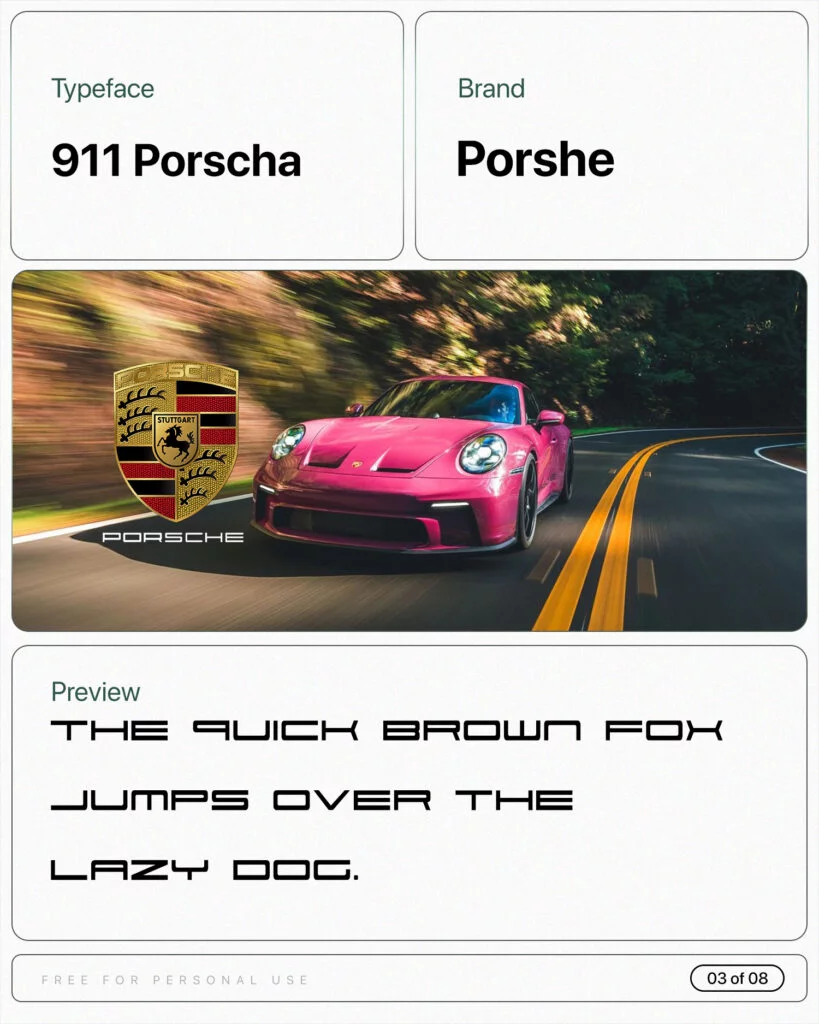
Fonts Used by Car brands with download links.š£
The typography behind iconic rides! From the sleek curves of Porshe to the bold statements of Tesla, delve into the world of automotive branding through fonts.
Each letter captures the essence of speed, luxury, and innovation. ā¤ļø
In some cases, the fonts have been or edited from their original form to create a customized wordmark. In those cases, Iāve listed the closest possible font that matches the logo.
Ferrari Logo Fot
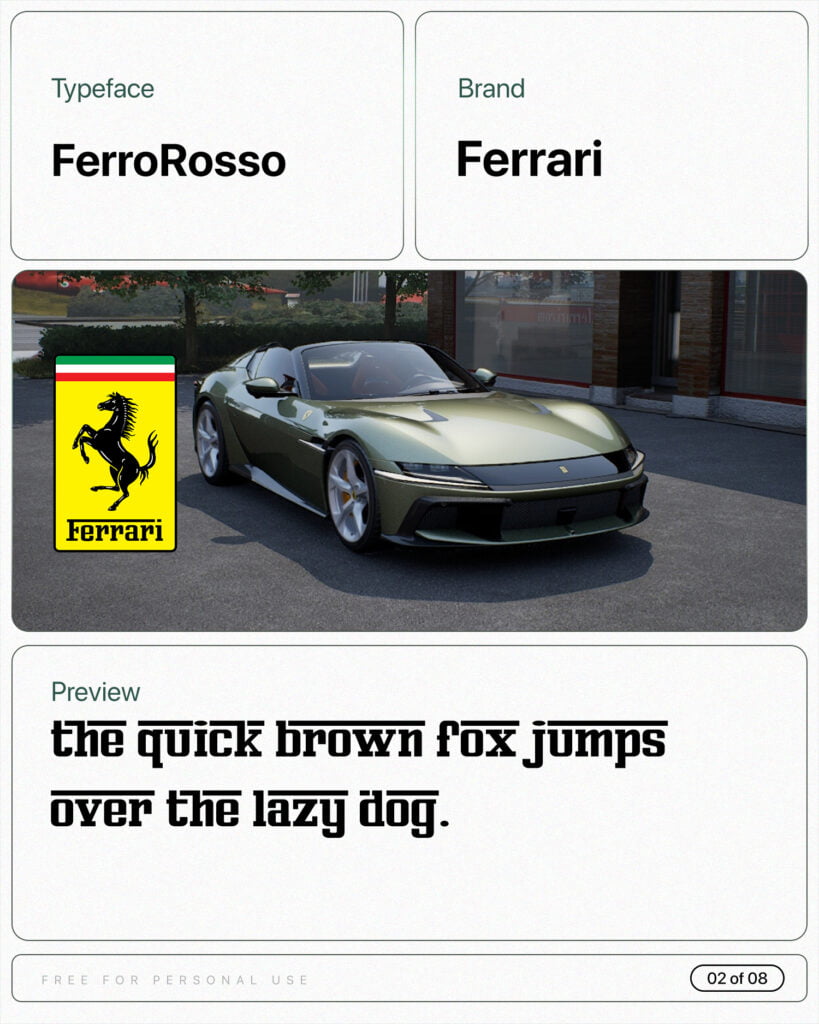
Porsche Logo Font
Ford Script Font
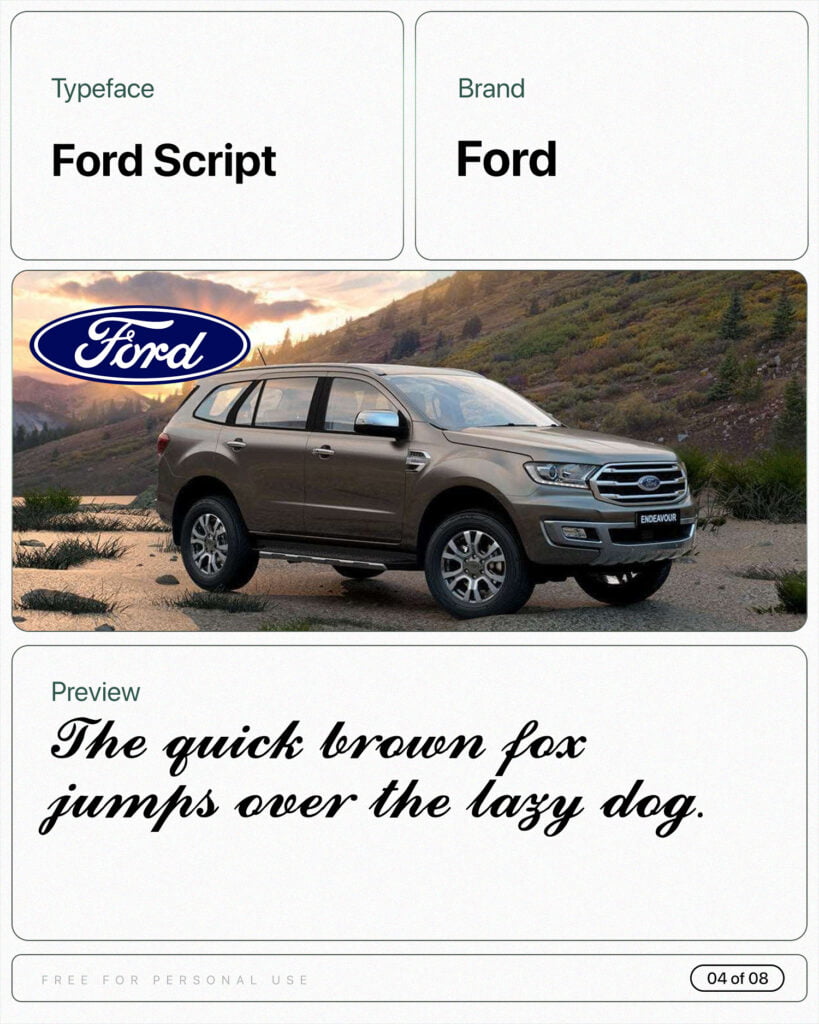
Hyundai Logo Font
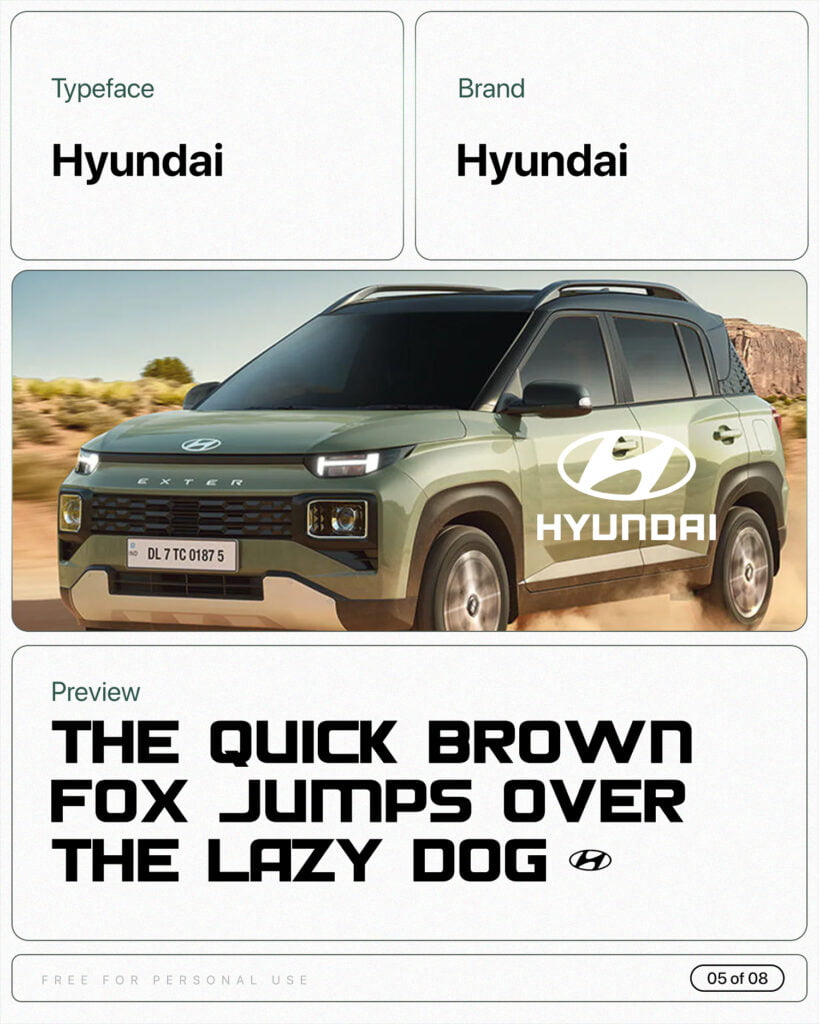
Chevrolet Logo Font
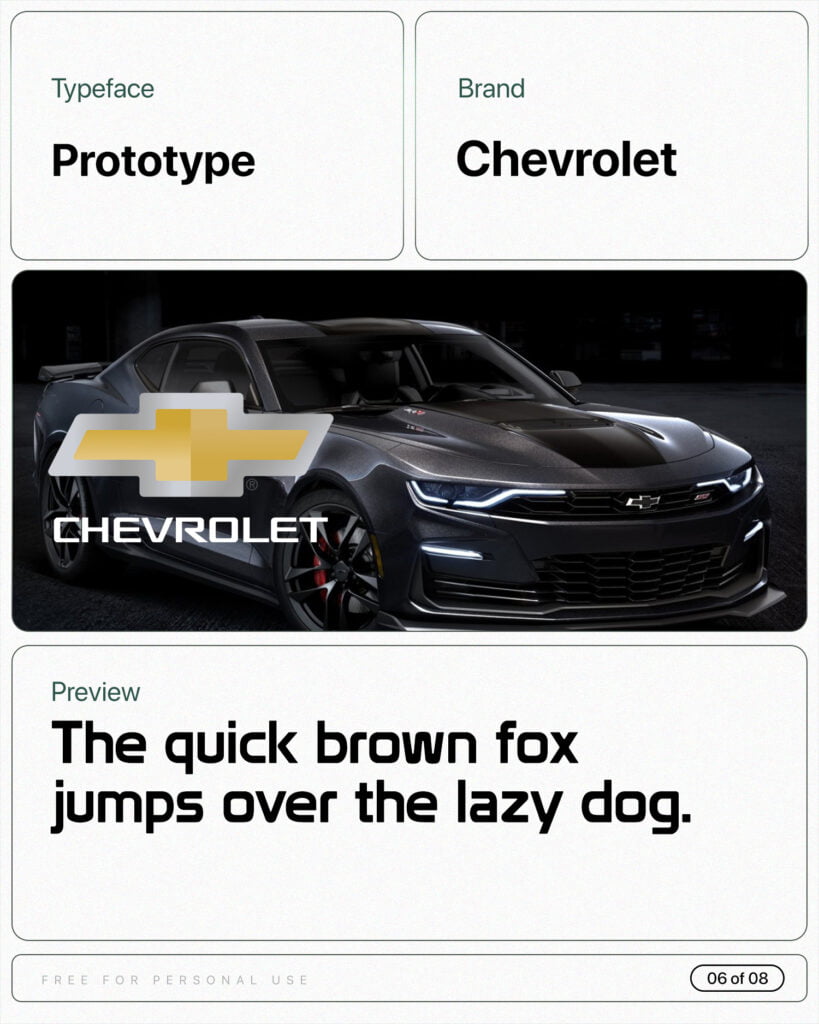
Tesla Logo Font